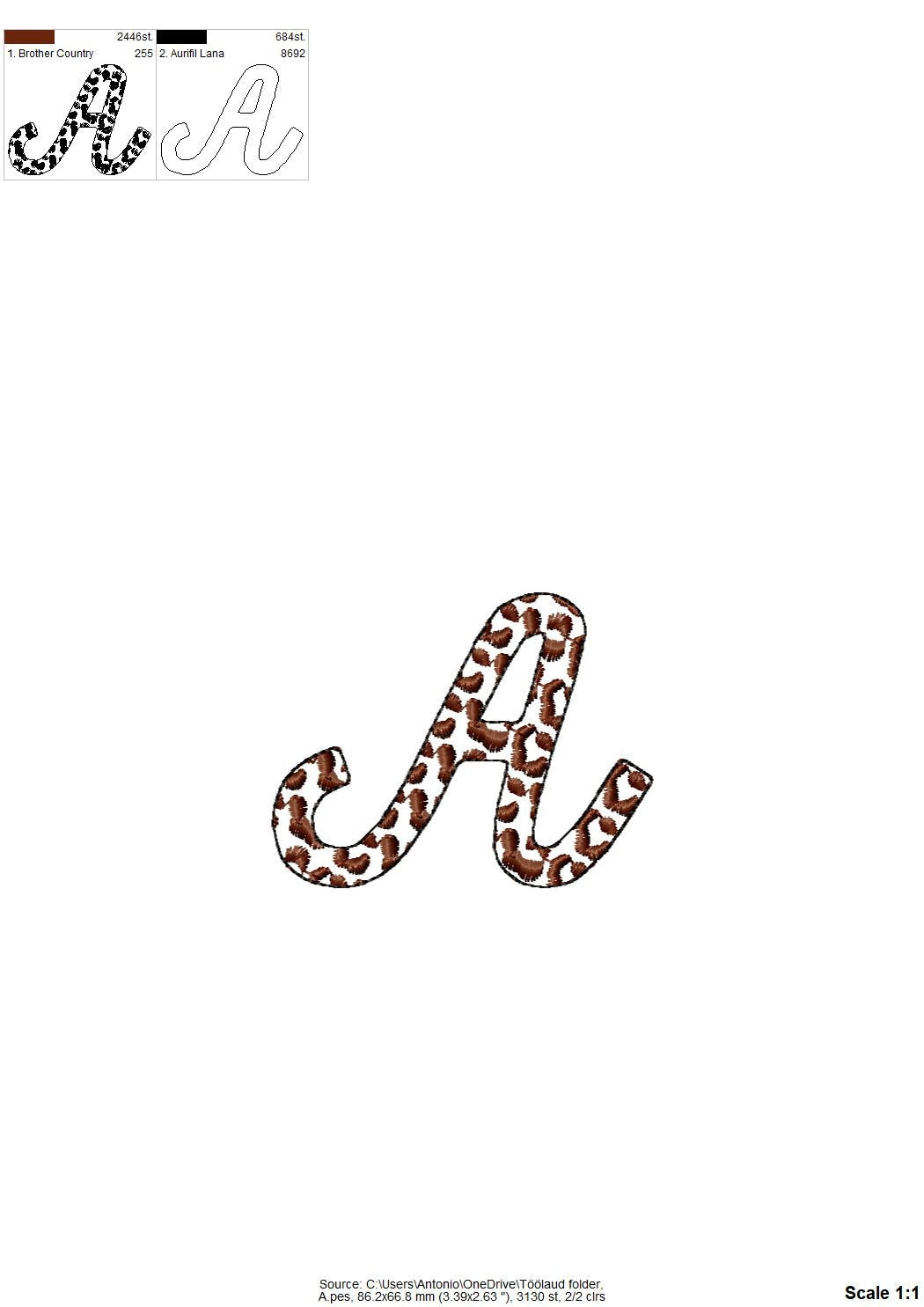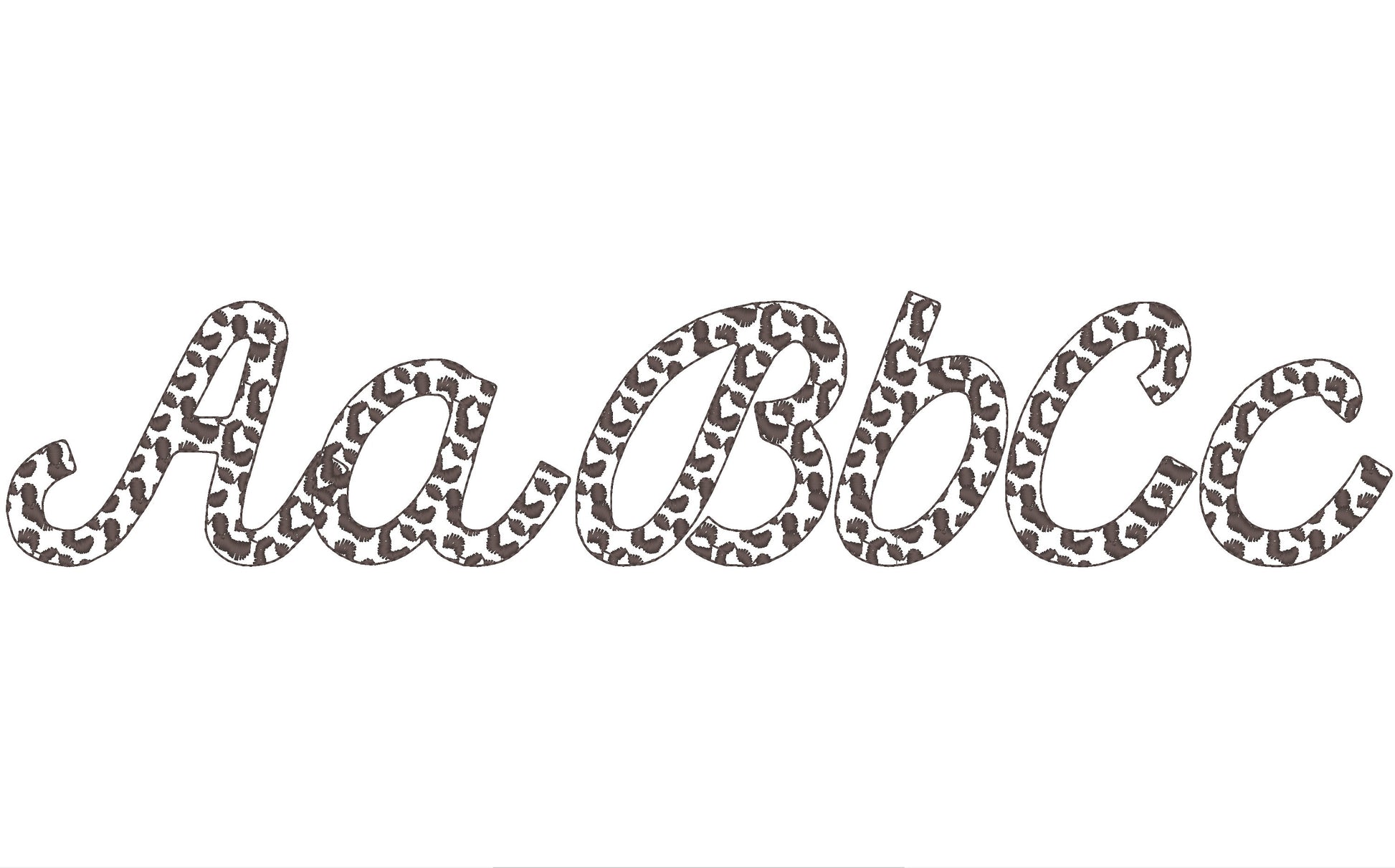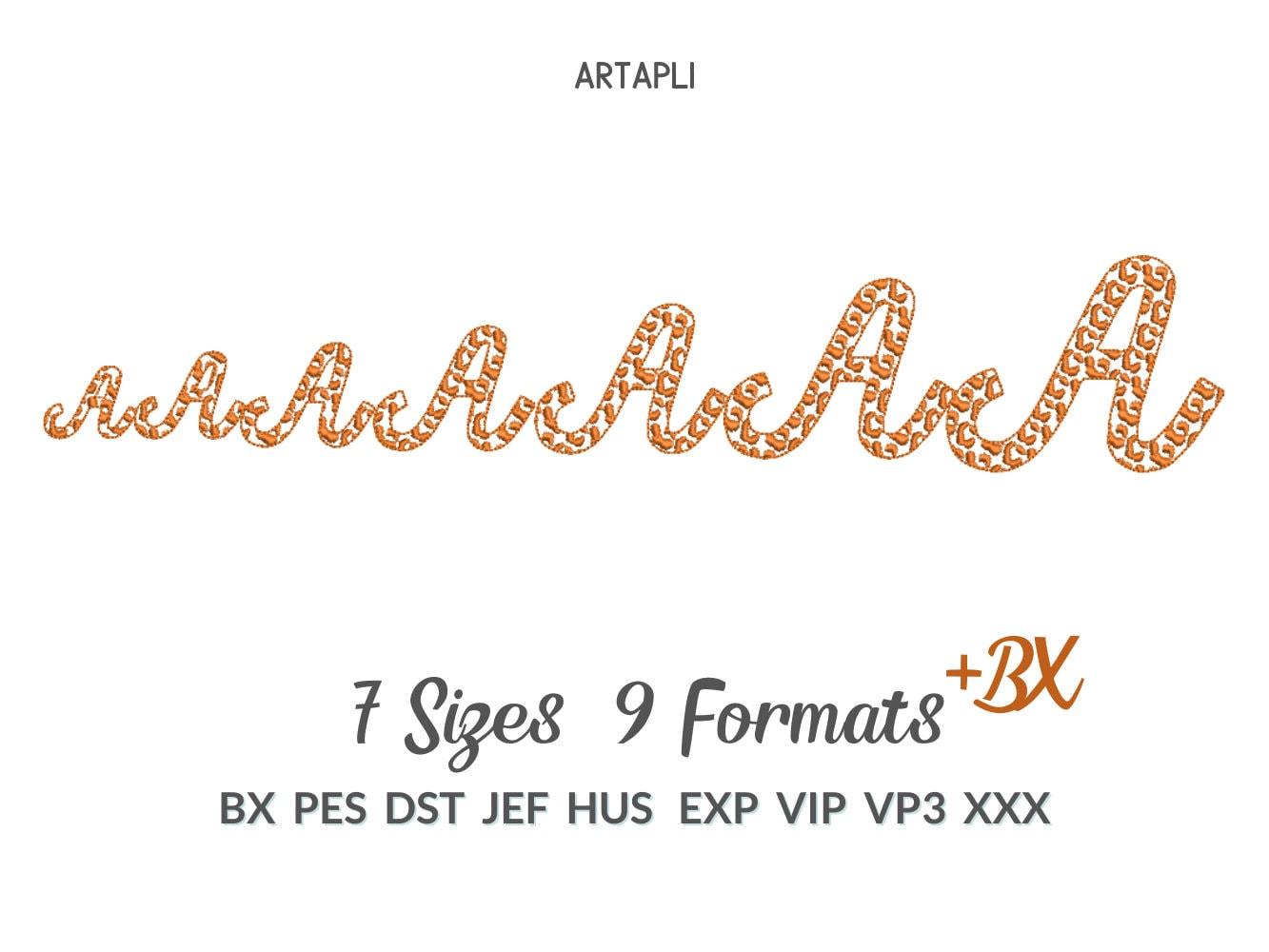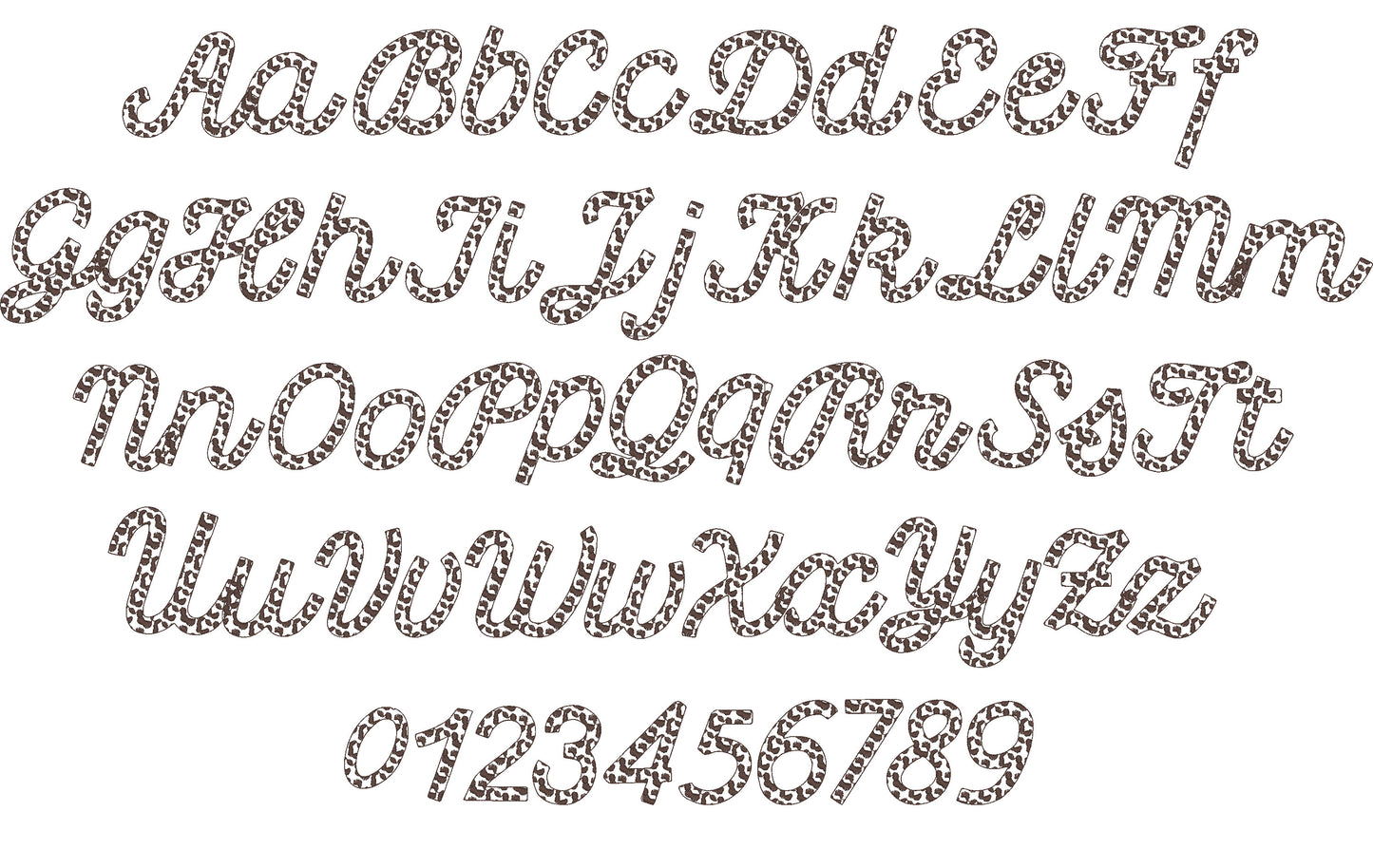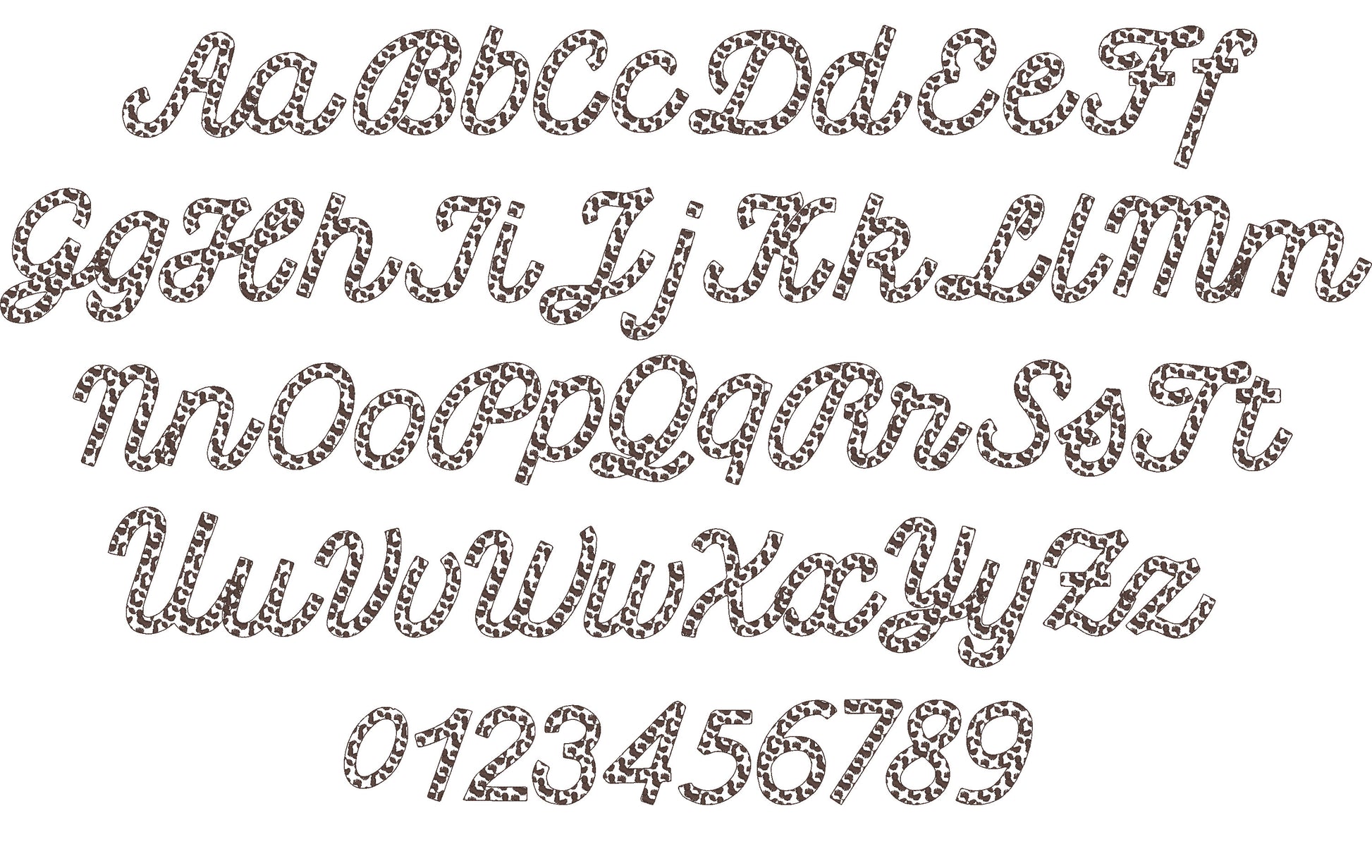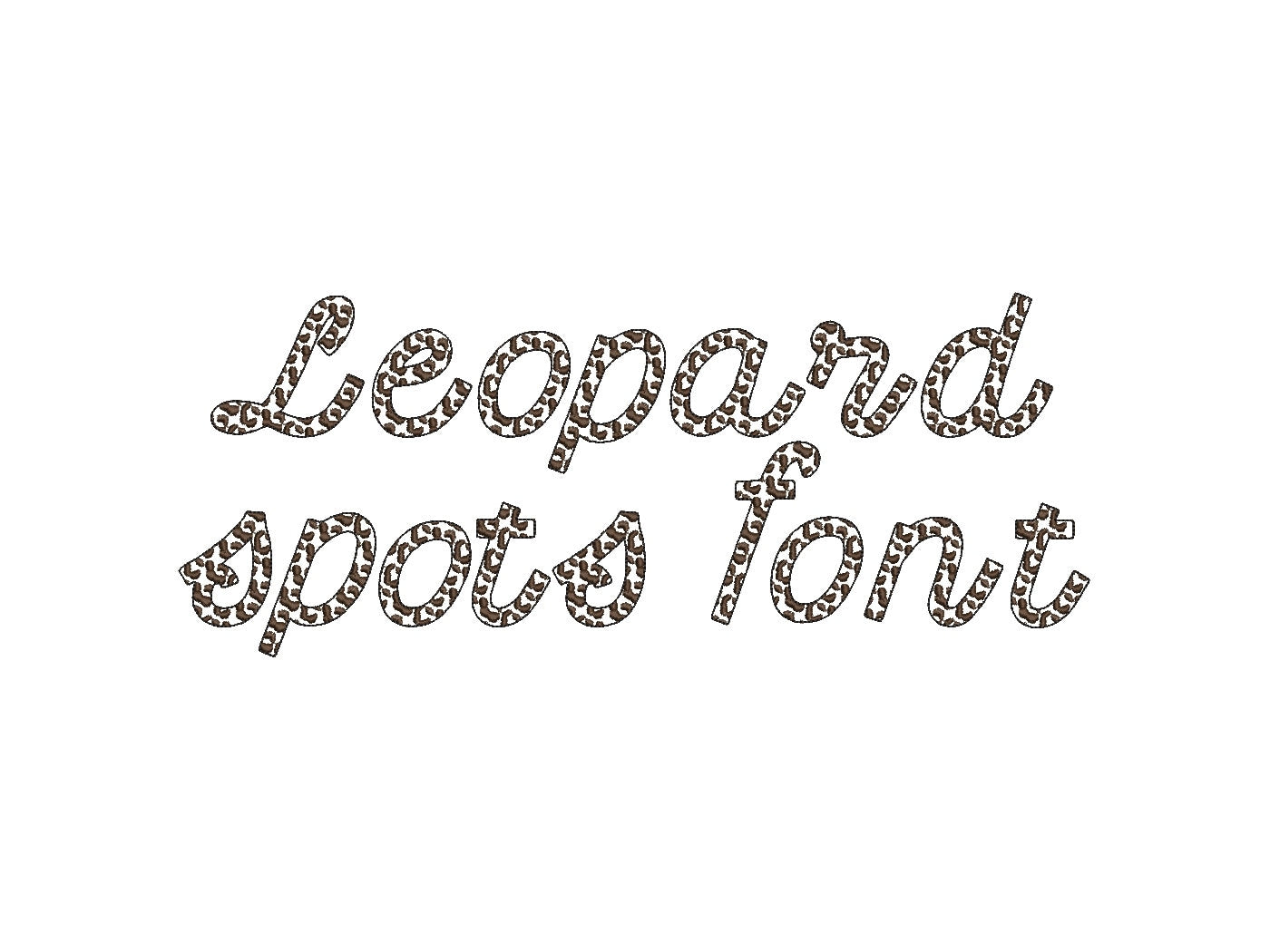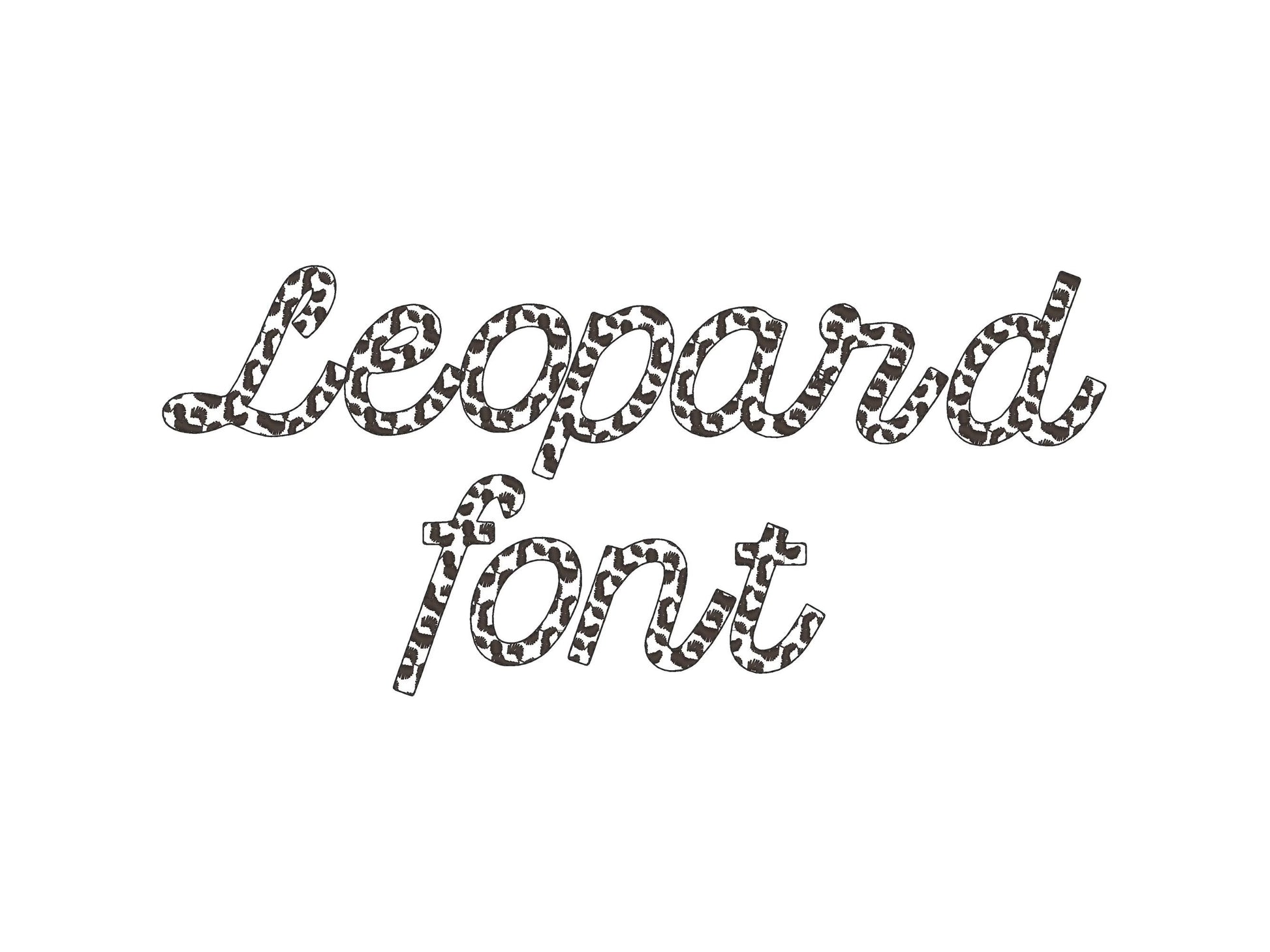
Leopard Print Font
Or click to open the linkA cursive leopard print font where the spots are part of the stitching and the fabric shows through. Wild and fun for shirts, bags and names.
Uppercase and lowercase letters, numbers 0 to 9, comma and period, in seven sizes: 1.3, 1.5, 1.8, 2, 2.6, 3 and 4 inches. Not an applique; the leopard spots are embroidered.
- Leopard print cursive font
- Uppercase and lowercase letters, numbers 0-9
- 7 sizes, 1.3 to 4 in